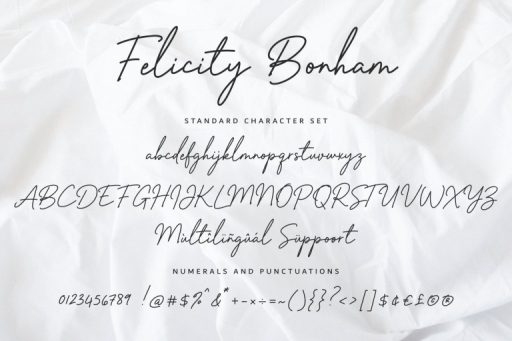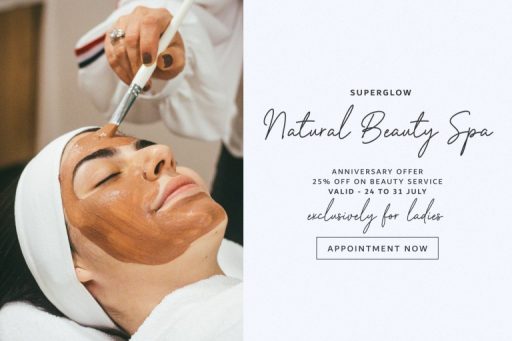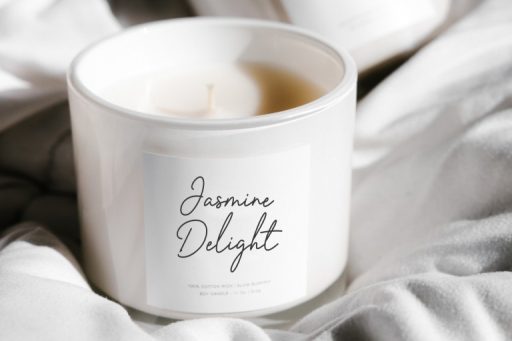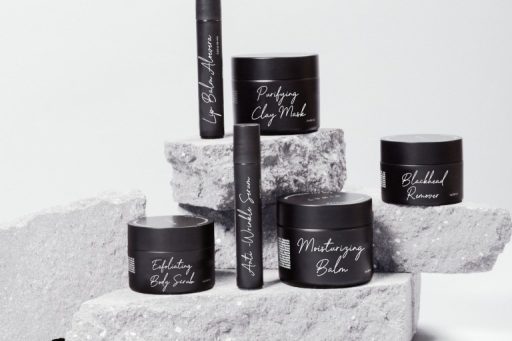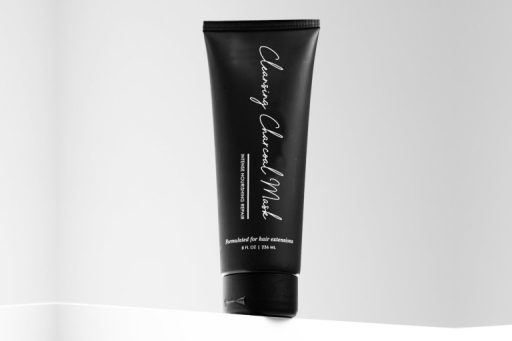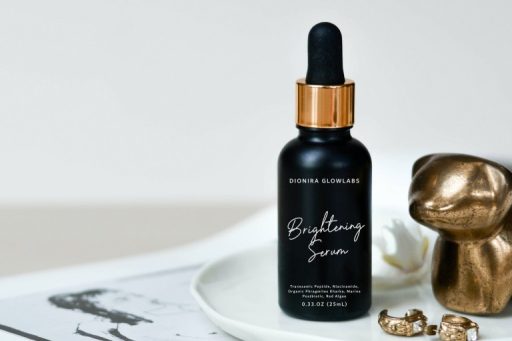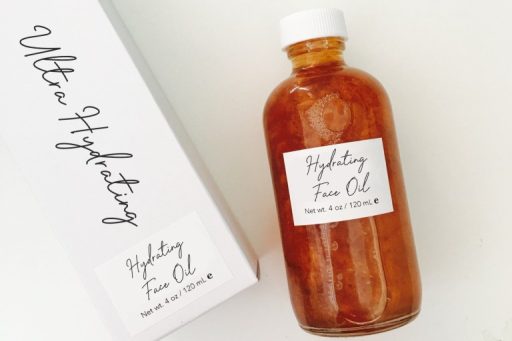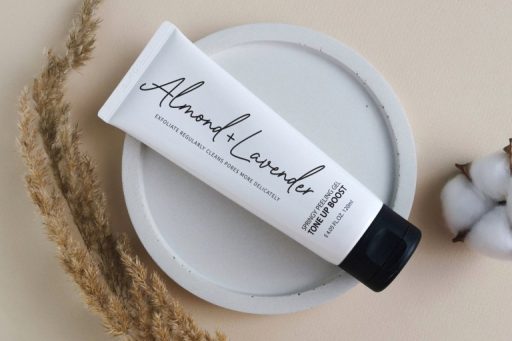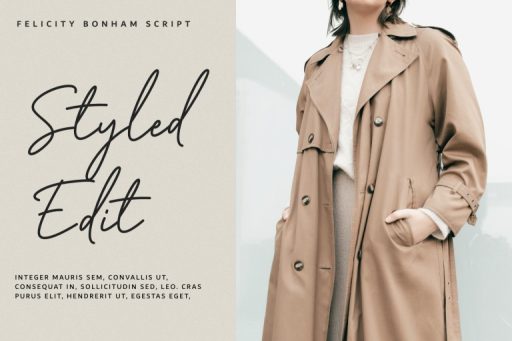
Felicity Bonham Font
Felicity Bonham – Signature Business Font
Felicity Bonham is a classy monoline signature font. Felicity Bonham is perfectly suited for any titles, logo, product packaging, branding project, magazine, social media, wedding signature, stationery, logo, typography quotes, magazine or book cover, website header, clothing, and more.
• Multilingual Support